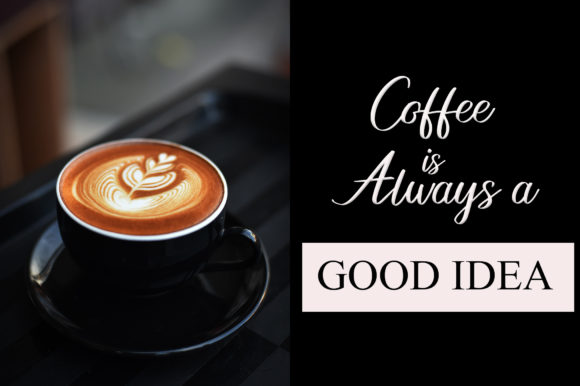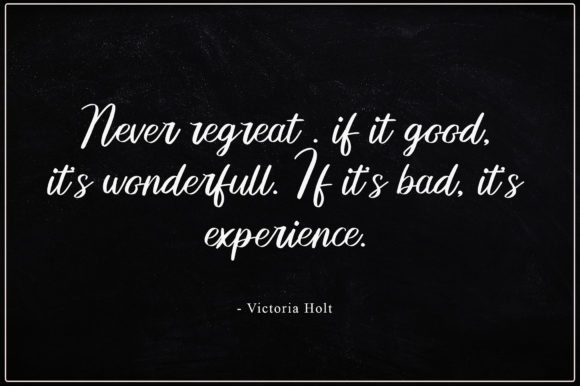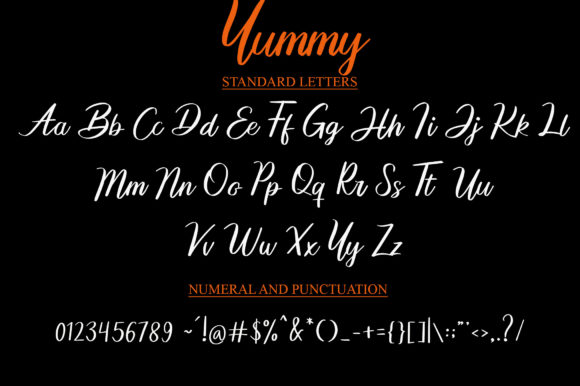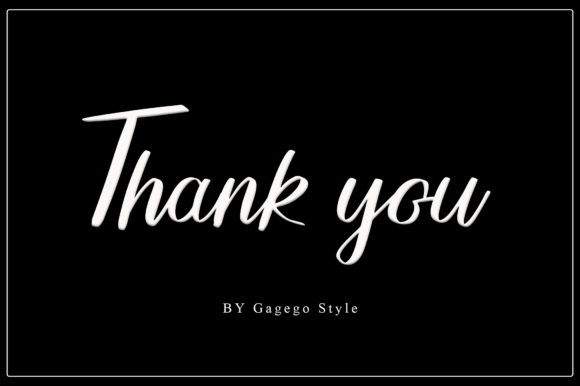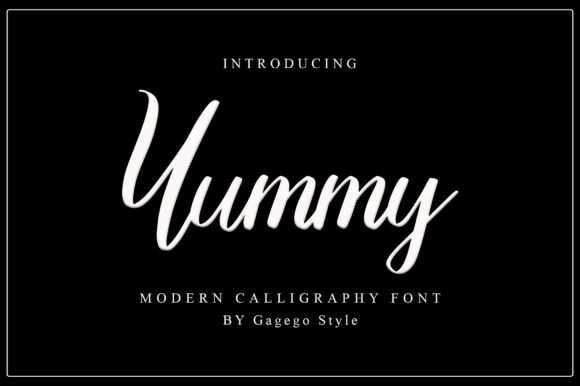
Yummy Font
About Yummy Font
Yummy is a lovely and delicate script font that exudes elegance and class. This font was particularly crafted for those who need a beautiful and refreshing look to their designs!